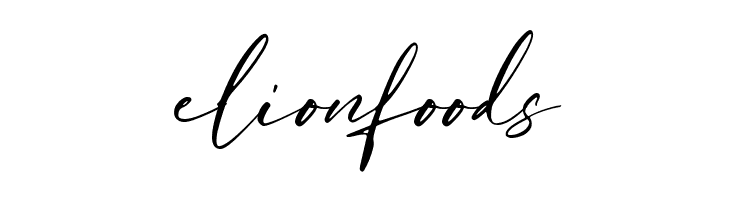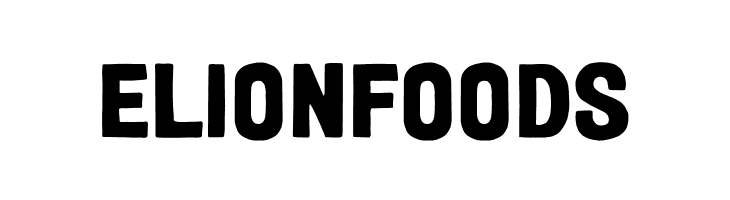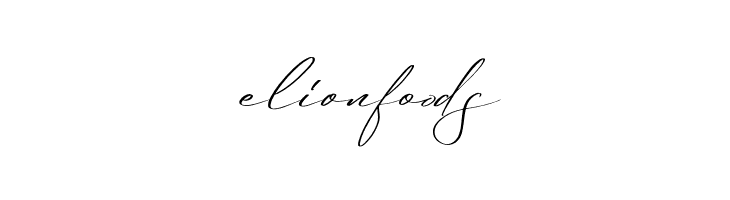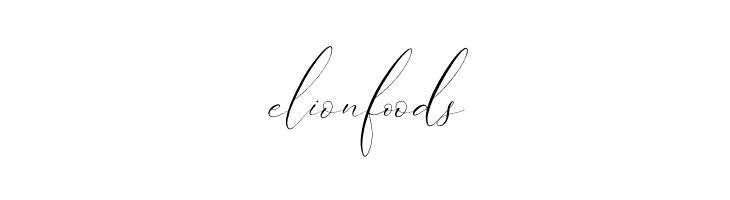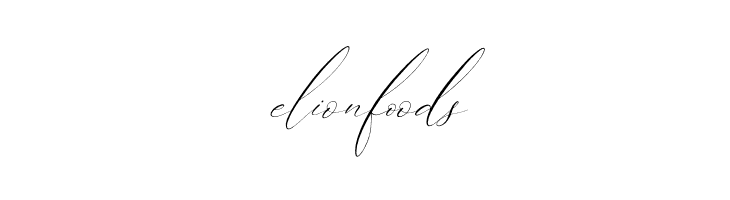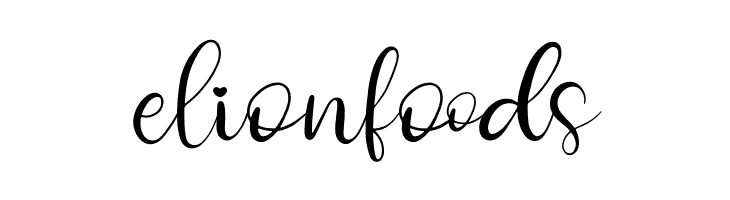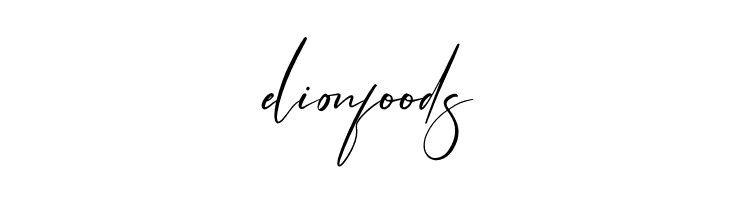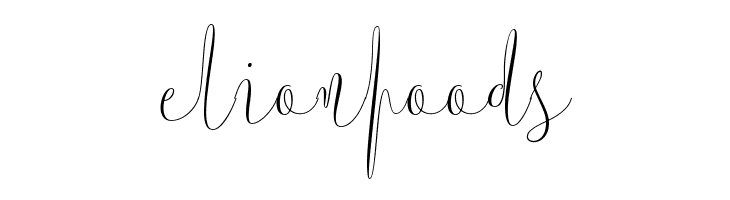
A thin, elegant, and modern handwritten-style font with a playful touch.
An elegant, flowing script font with a natural handwritten style.
A playful, handwritten font with whimsical and decorative elements.
A graceful and ornate script font with flowing, cursive letterforms.
A graceful script font with elegant, flowing characters and decorative flourishes.
A flowing, cursive font with elegant, sweeping strokes and decorative flourishes.
An elegant and flowing script font with graceful curves and bold flourishes.
An elegant, cursive script font with ornate swashes and flowing curves.
An elegant, flowing script font with intricate loops and flourishes.
Elegant cursive font with a handwritten signature style.
An elegant, flowing script font with graceful, connected letters and high contrast.
A dynamic, expressive handwritten font with fluid strokes and artistic flair.
A bold, modern font with a slightly condensed style, ideal for impactful designs.
An elegant, flowing script font with bold, cursive letterforms.
A flowing, cursive script font with an elegant, handwritten style.
A playful and elegant script font with flowing, cursive letters.
An elegant script font with flowing, cursive letterforms and sophisticated style.
A graceful and elegant script font with flowing, cursive letterforms.
A modern, elegant script font with high contrast and flowing cursive letters.
A graceful, cursive script font with a signature-like style.
An elegant and sophisticated cursive script font with flowing, interconnected letters.
An elegant, flowing script font with delicate, thin strokes and intricate swashes.
A graceful, flowing script font with high contrast and elegant curves.
A graceful and elegant script font with flowing, cursive strokes and intricate details.
An elegant, italic script font with flowing, connected characters.
An elegant, flowing script font with thin, delicate strokes.
A graceful and elegant script font with flowing cursive letters.
A graceful script font with flowing, elongated strokes and high contrast.
An elegant, flowing script font with a refined and sophisticated style.
A cursive, handwritten-style font with thin, flowing strokes and elegant loops.
An elegant, flowing script font with graceful curves and loops.
An elegant script font with flowing, cursive letterforms and refined style.
A lively and expressive handwritten font with dynamic strokes.
A playful and elegant script font with decorative swashes and flowing letterforms.
A bold, italicized decorative font with playful, rounded characters.